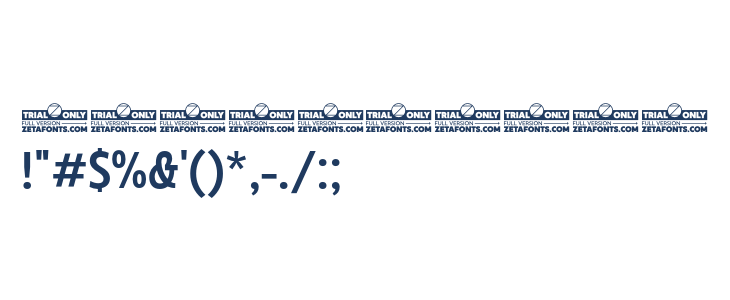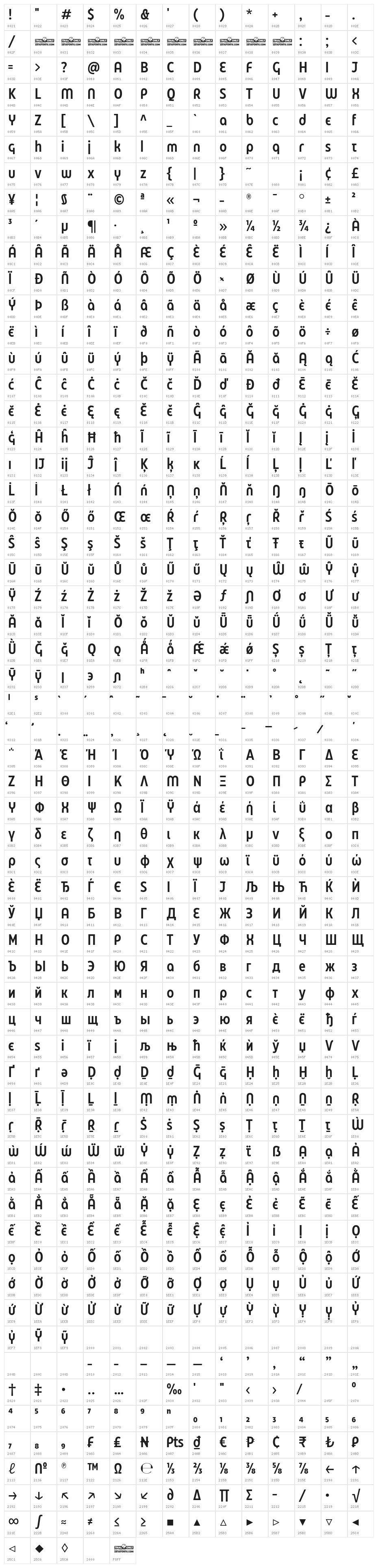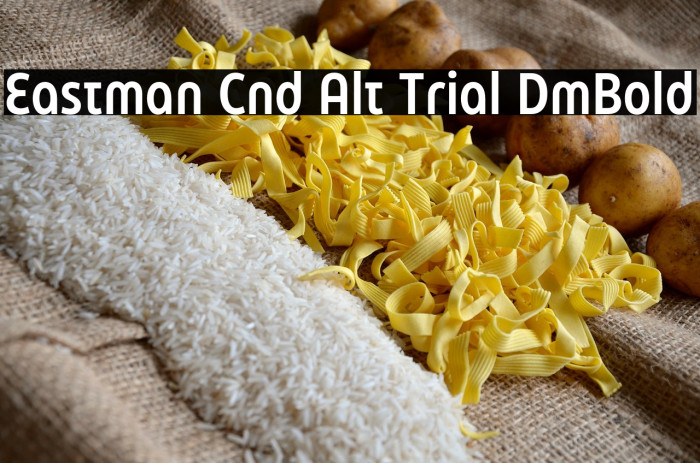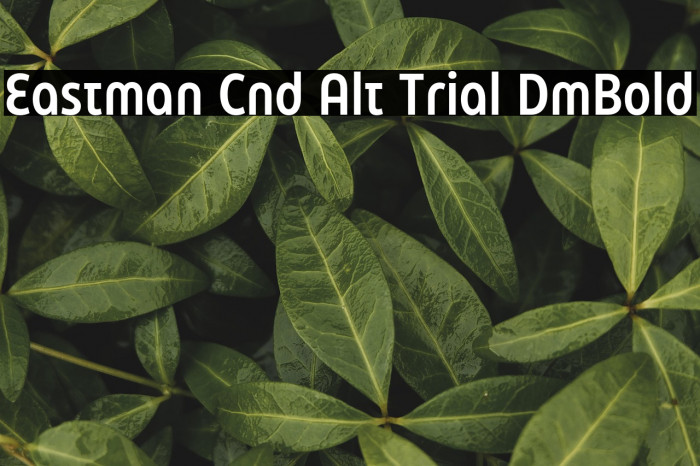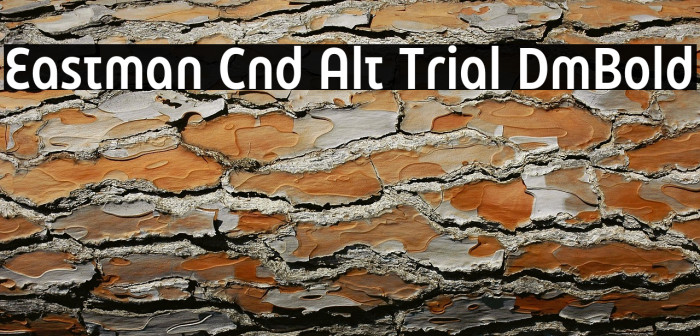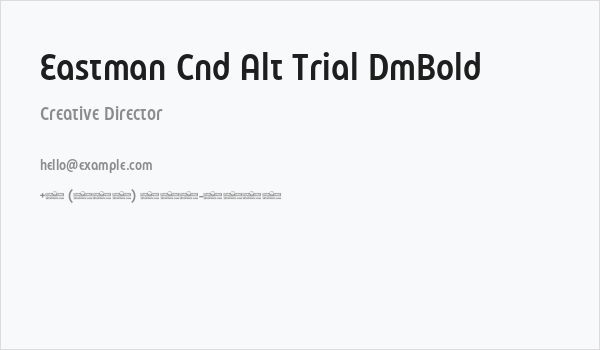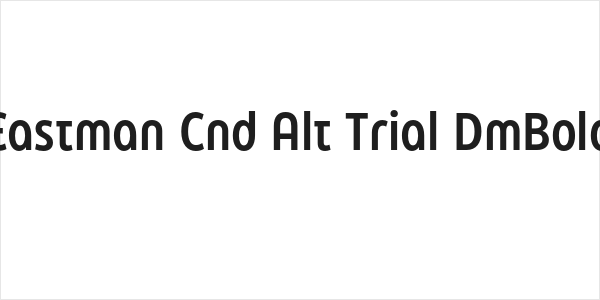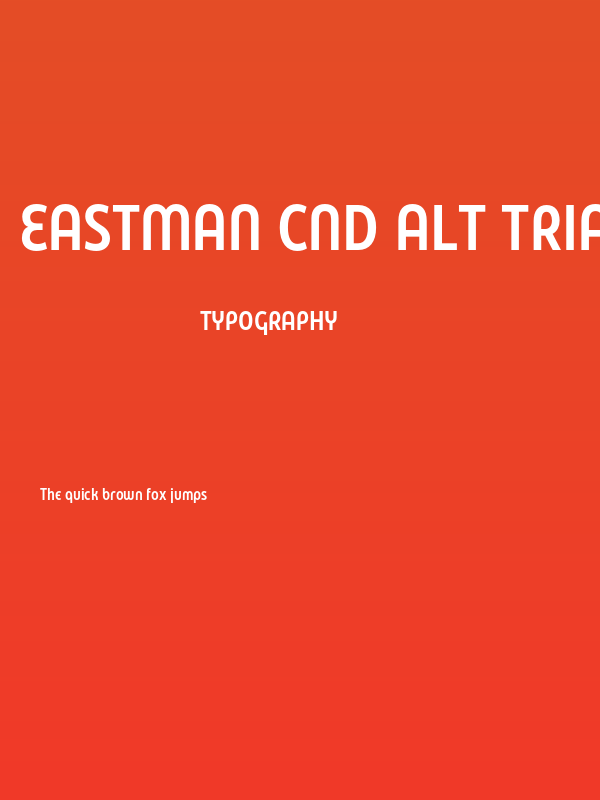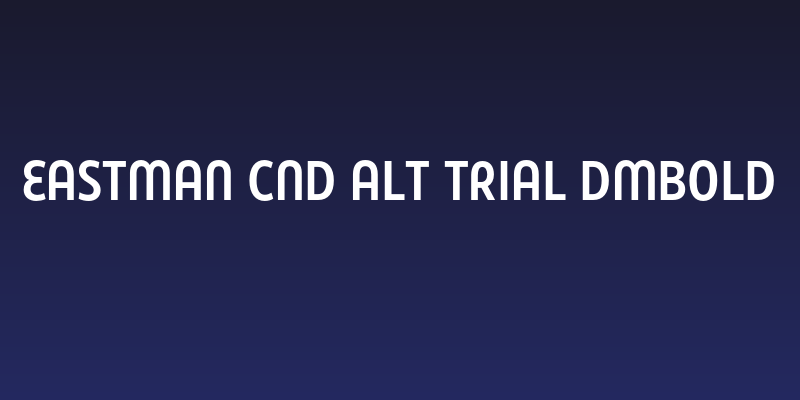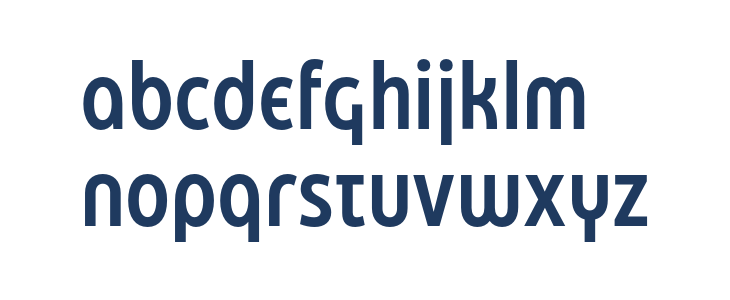
Eastman Cnd Alt Trial DmBold Font
Eastman Cnd Alt Trial DmBold Description
This font features a modern and clean design with a condensed structure, making it ideal for space-saving applications. The characters exhibit a uniform stroke width, contributing to a cohesive and balanced appearance. The uppercase and lowercase letters maintain a consistent height, enhancing readability. The rounded edges of the characters add a touch of softness, while the overall geometric style provides a contemporary feel. The font includes a comprehensive set of special characters, ensuring versatility for various design needs.
| Proposed Projects | Ideal for branding, advertising, and editorial design where space efficiency and modern aesthetics are key. |